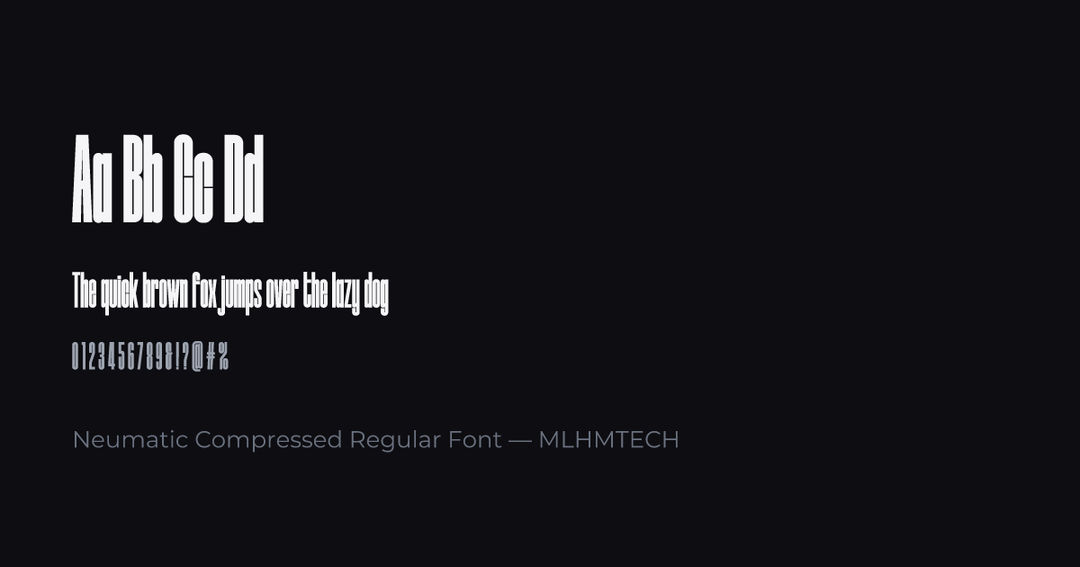
Neumatic Compressed Regular Font
Neumatic Compressed Regular is a bold, condensed sans-serif font ideal for impactful headlines and titles in video and design projects.
Neumatic Compressed Regular is a geometric sans-serif with a compressed, narrow design that commands attention. Its tight letterforms and strong presence make it perfect for titles, posters, and branding where space is limited but impact is essential.